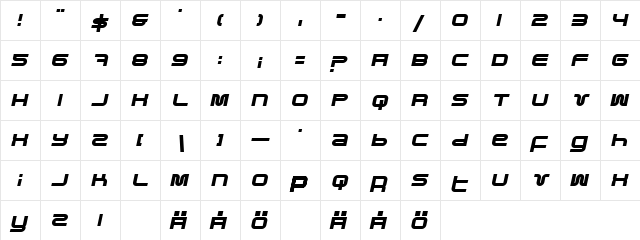
Pfuk BoldItalic
Design Context for Pfuk Typeface
Pfuk is a composed and adaptable typeface that performs quietly and consistently across a wide range of design contexts. The dynamic lean of this cut emphasises speed and emphasis in any layout. The heavy weight commands attention and anchors typographic hierarchies.
Pro Tip: Use Pfuk for emphasis, pull quotes, and subheadings where its slanted energy can add rhythm to the layout.